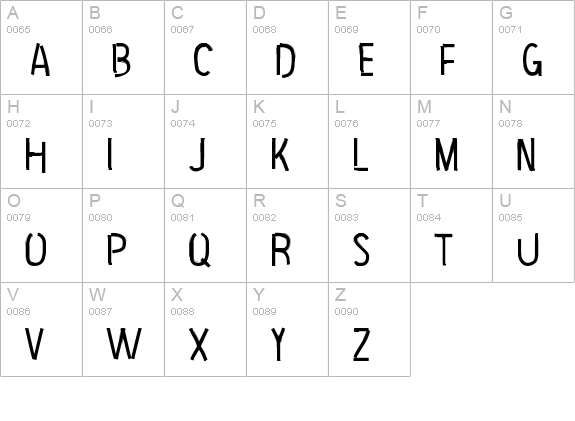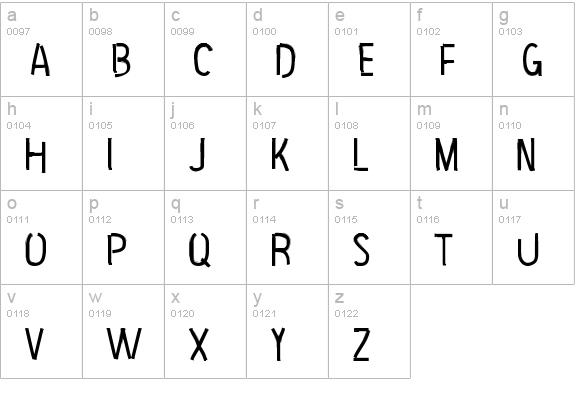
Hip Priest Font Details
Introducing the captivating and stylish Hip Priest font, a modern typeface that effortlessly blends elegance with a touch of edginess. With its sleek lines and unique design, Hip Priest is perfect for making a bold statement in any creative project. This versatile font is ideal for a wide range of uses, from branding and advertising to editorial design and social media graphics. Its clean and contemporary look will add a sophisticated touch to any design, making it stand out from the crowd. The best part? Hip Priest is completely free to download at FontsMarket.com. So you can elevate your projects with this eye-catching font without breaking the bank. Don't miss out on this fantastic opportunity to enhance your designs with the Hip Priest font today!